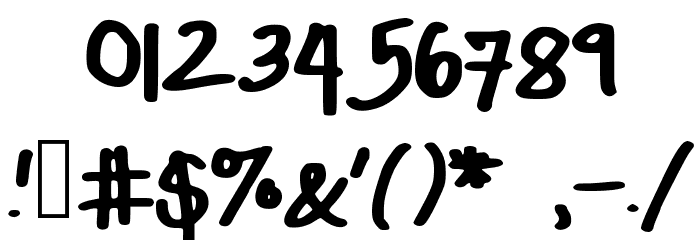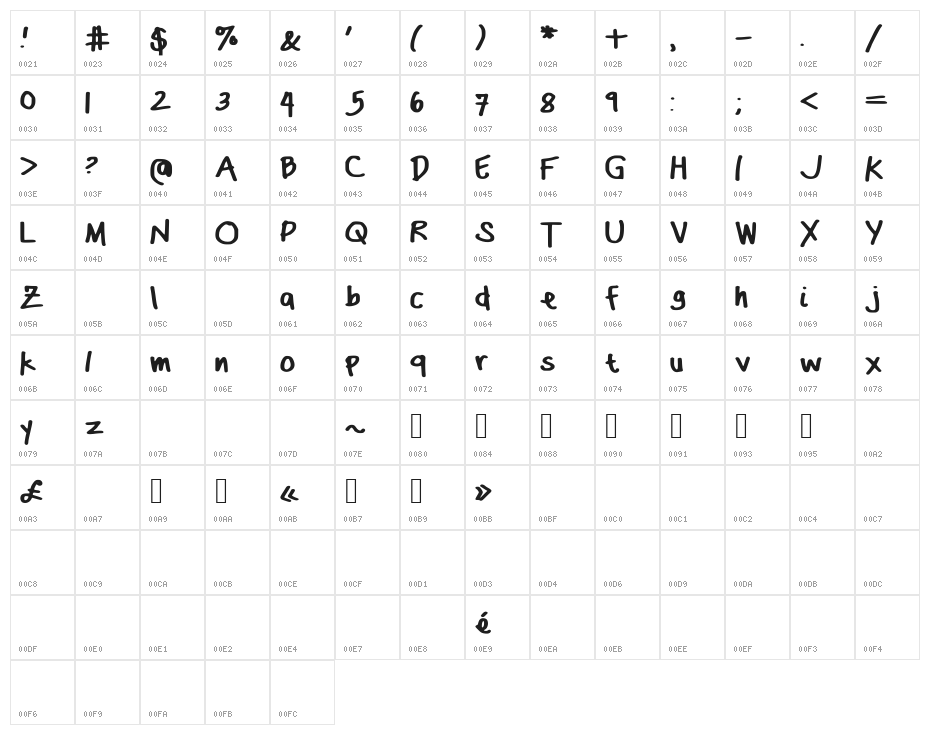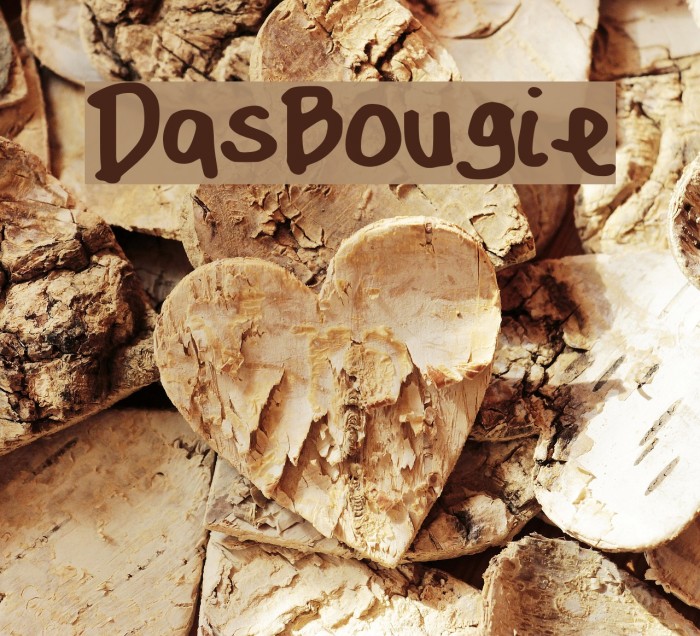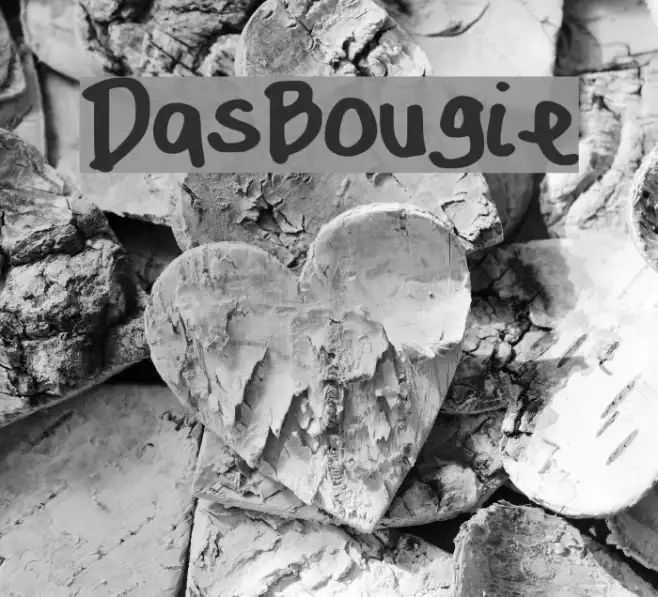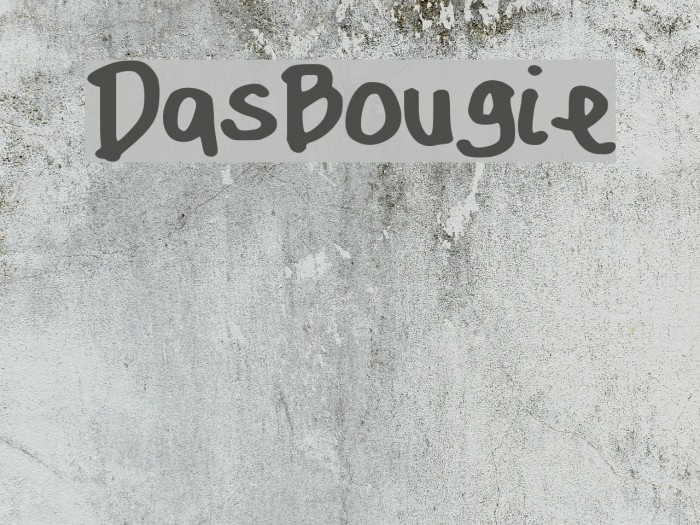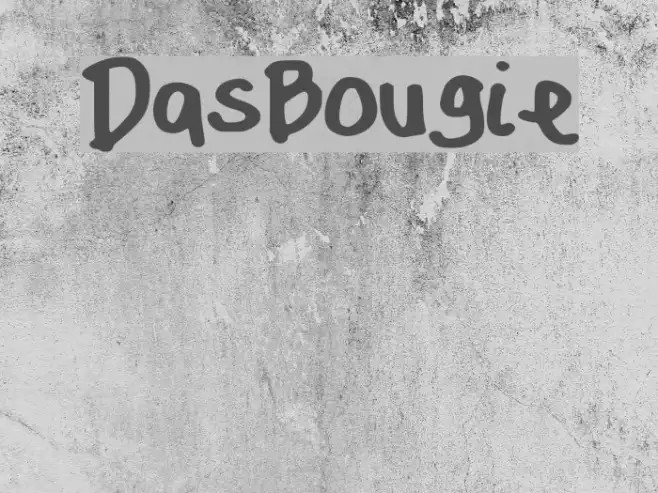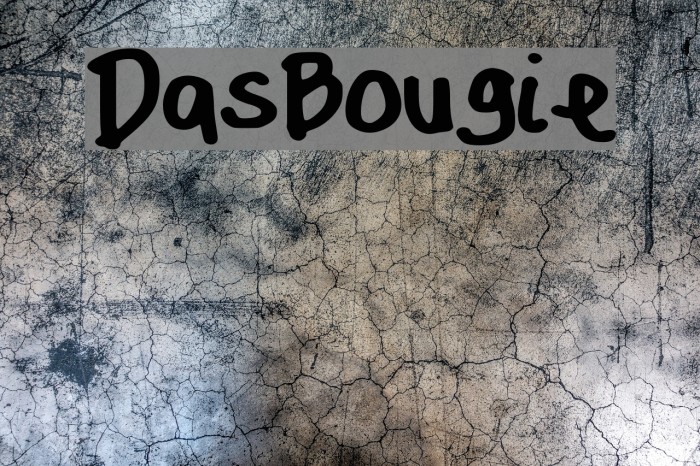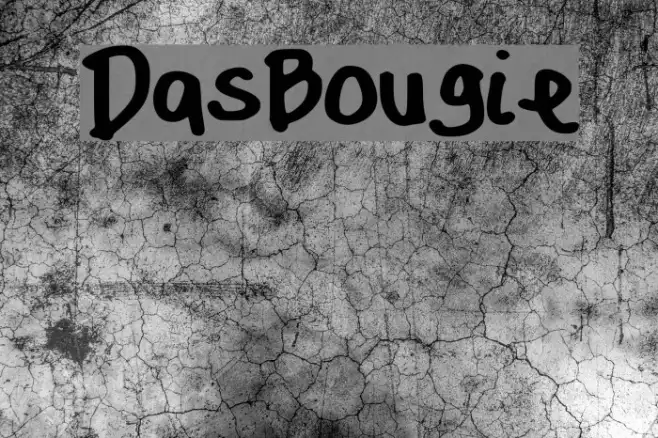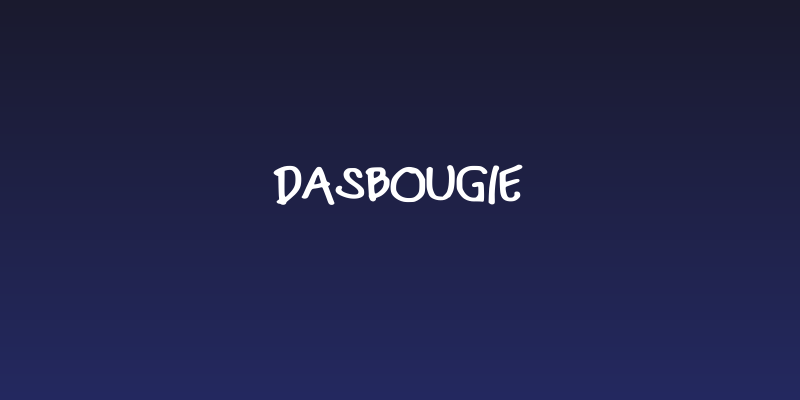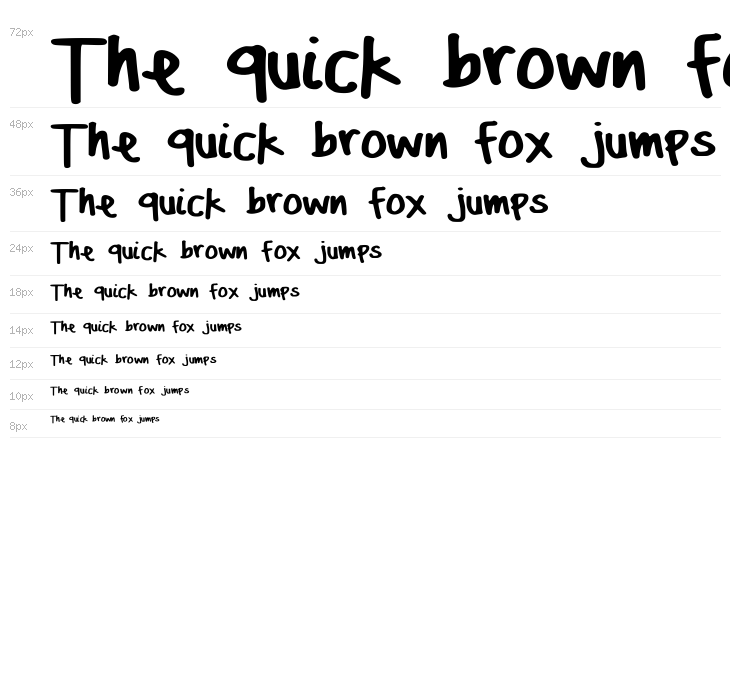
DasBougie Font
DasBougie Description
This playful and energetic font features a handwritten style with bold, rounded strokes that convey a sense of friendliness and approachability. The characters are slightly irregular, adding a whimsical touch that is perfect for informal and creative projects. The uppercase and lowercase letters maintain a consistent flow, while the numerals and special characters complement the overall style. Its casual appearance makes it suitable for designs that aim to be fun and engaging.
| Proposed Projects | Ideal for children's books, greeting cards, playful branding, and social media graphics. |